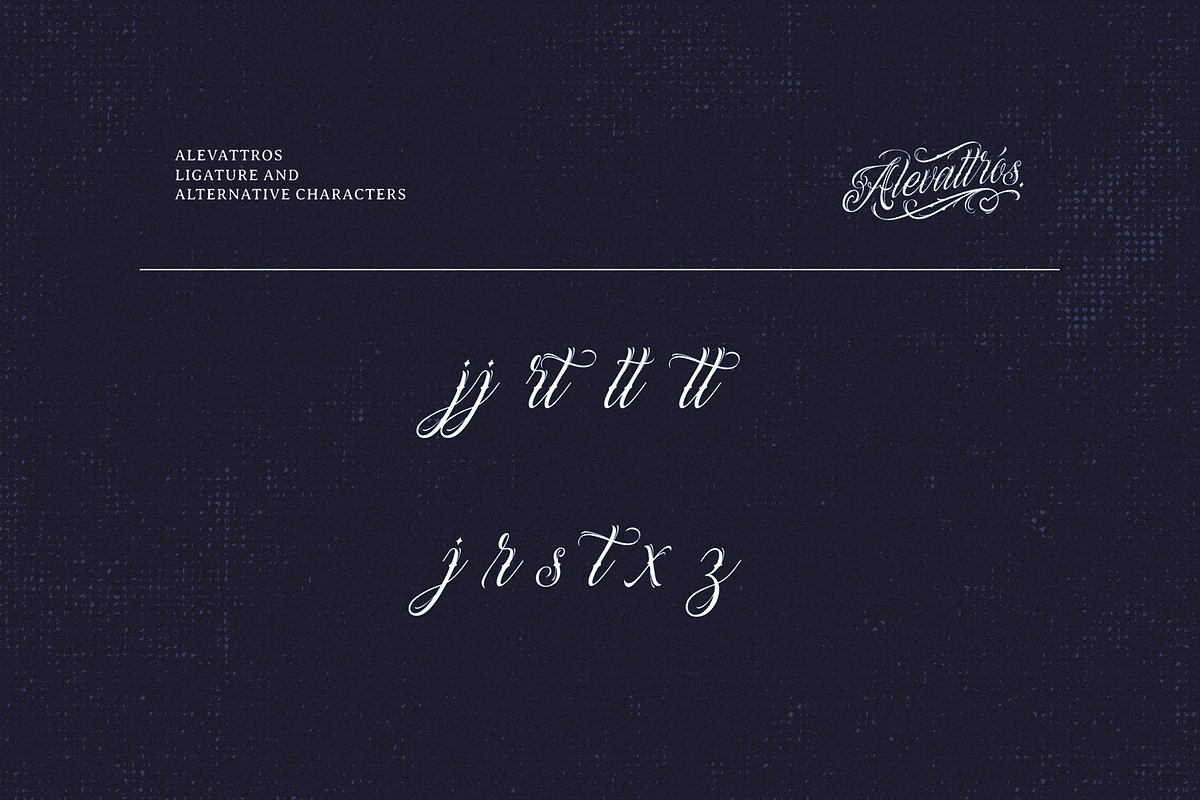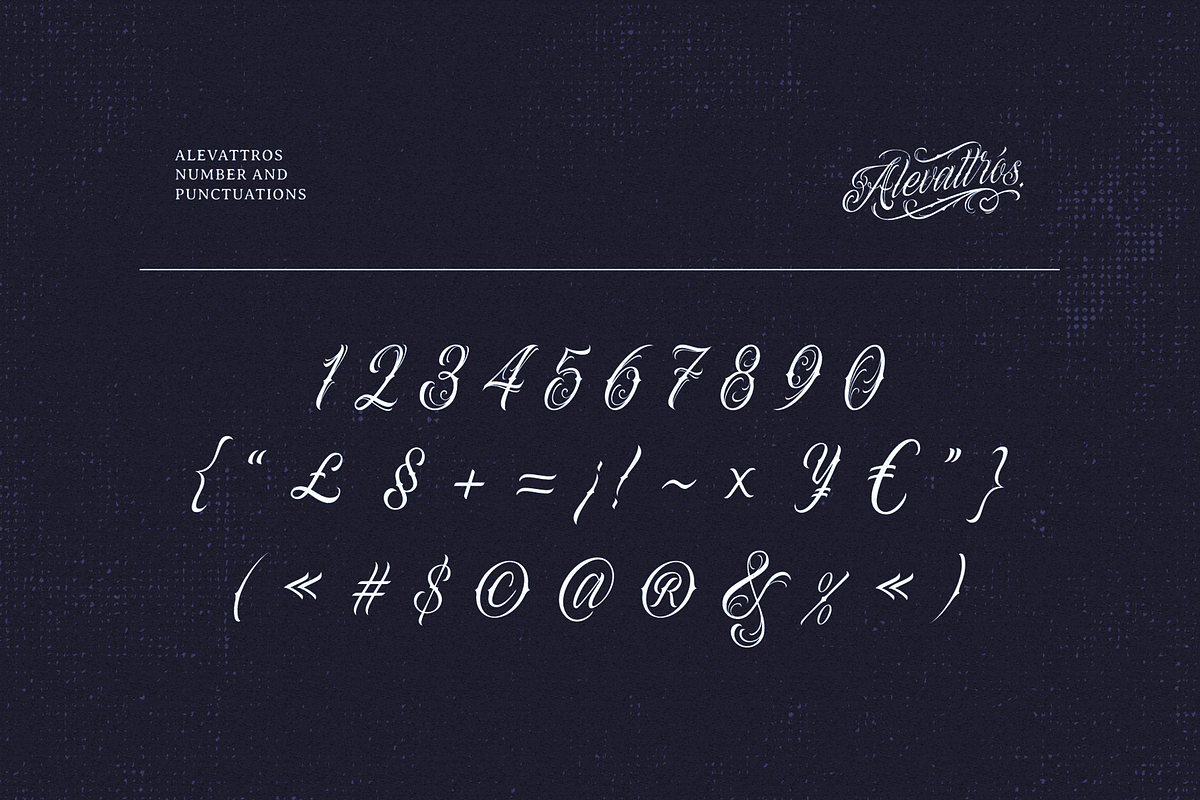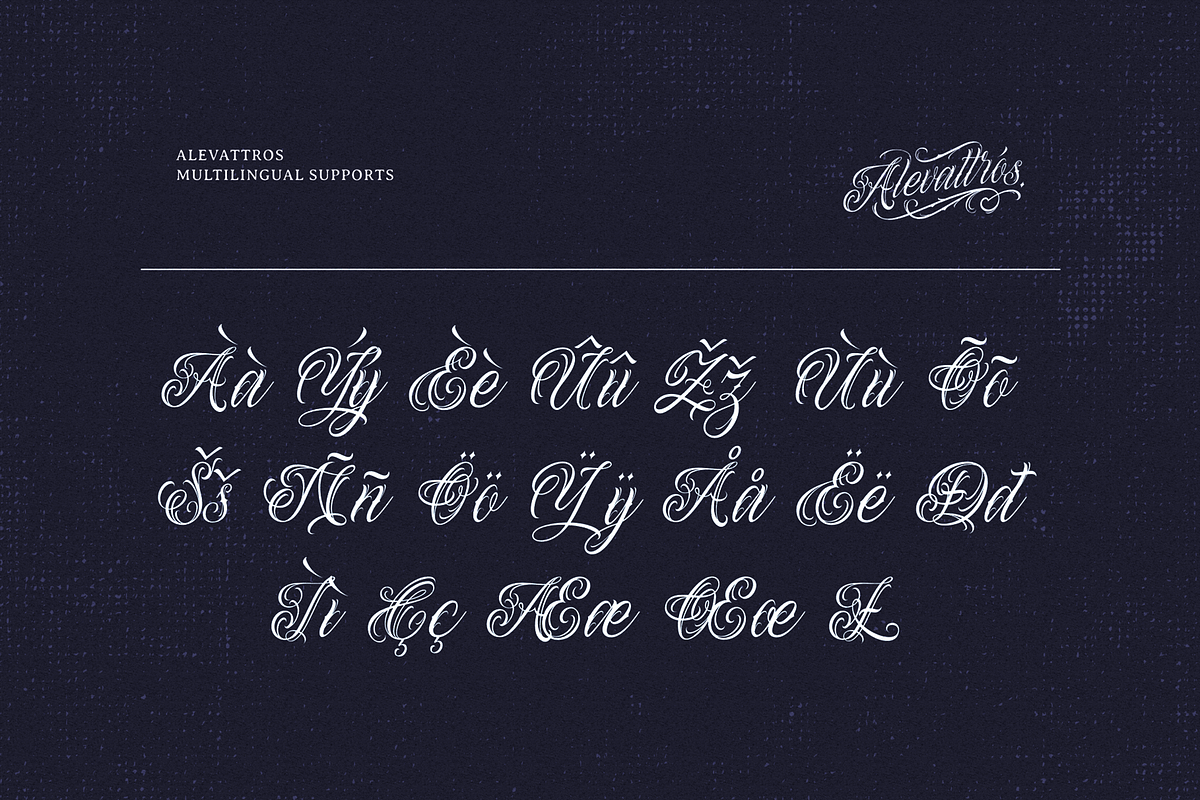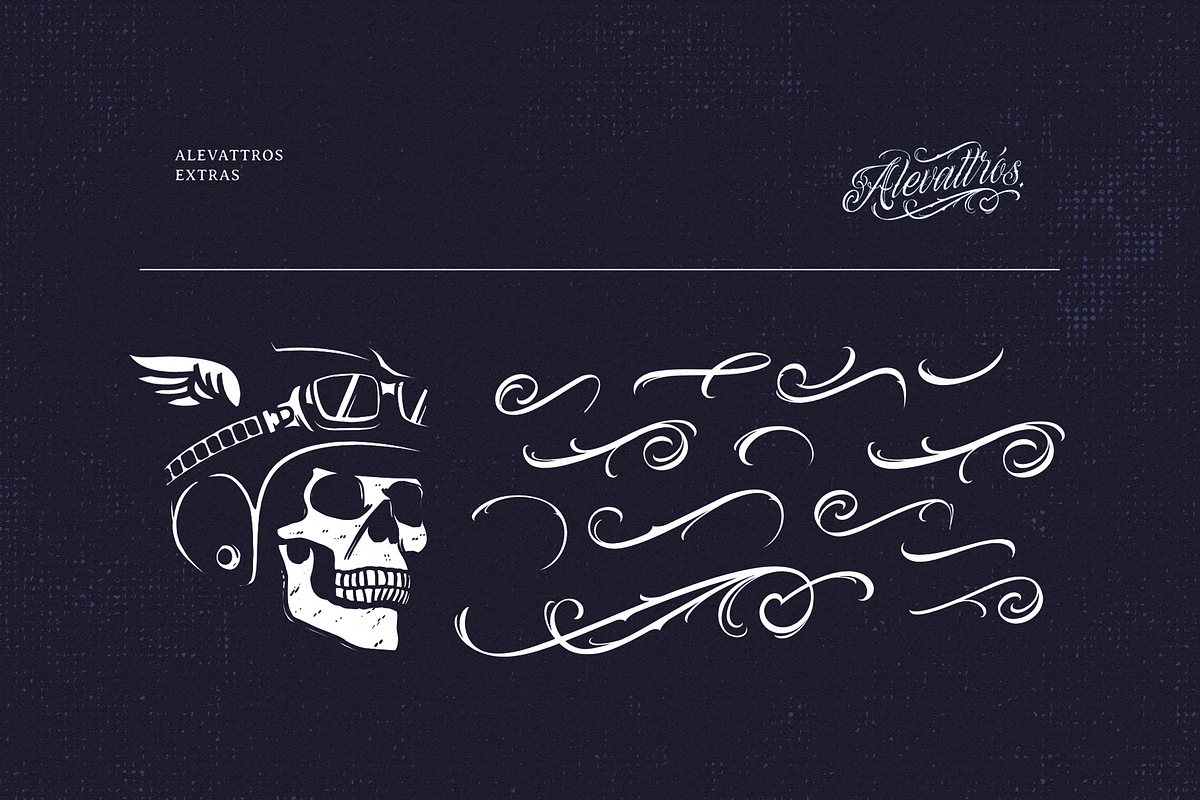
Alevattros Script for Tattoo Logo
ALEVATTROS
is a tattoo style script, of course it will be very suitable for your tattoo lettering design. It is also very suitable if you want to make your tattoo studio logo using this font.
Features : Alternate Characters. Ligatures. Discretionary Ligatures. Extras. Support Multilingual Characters.